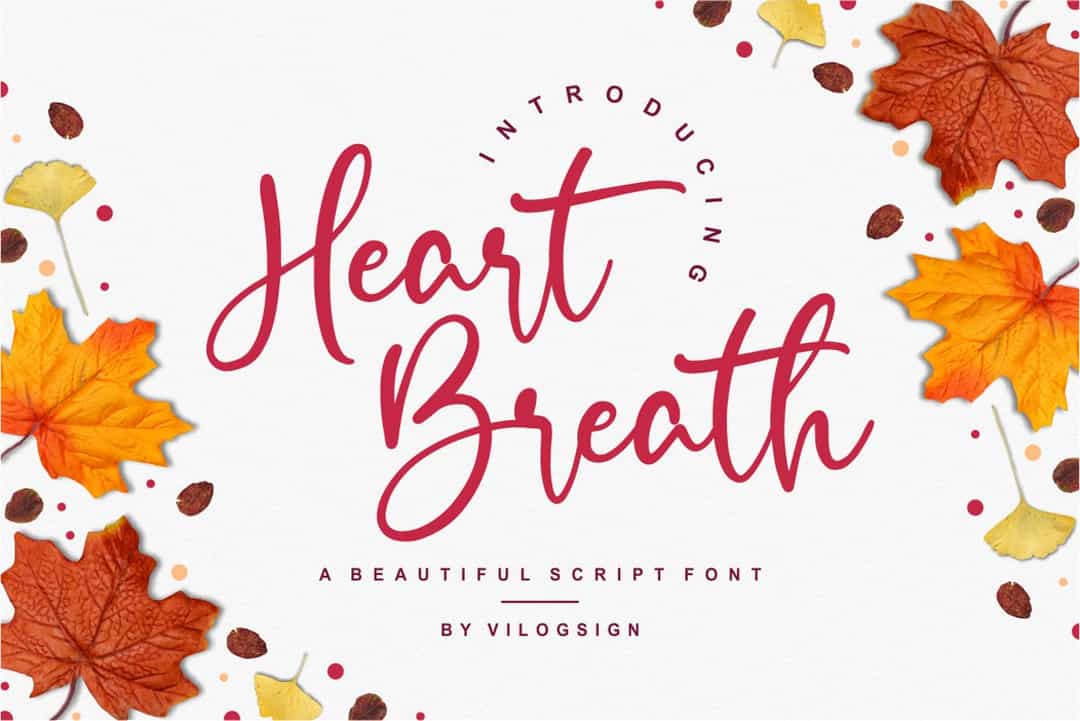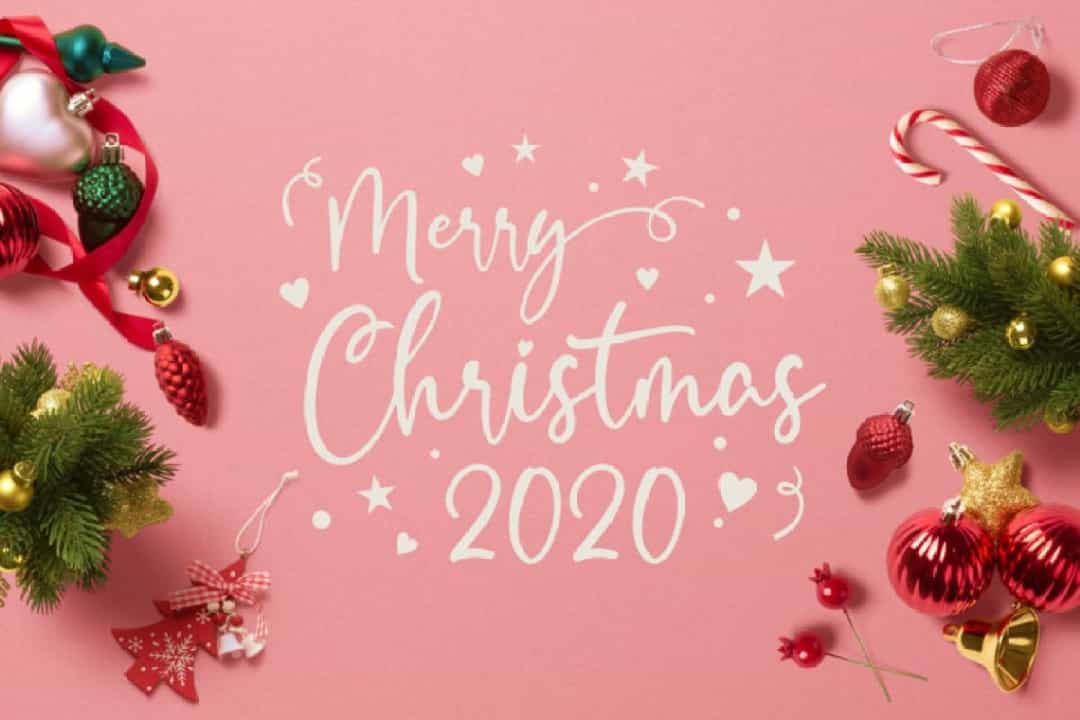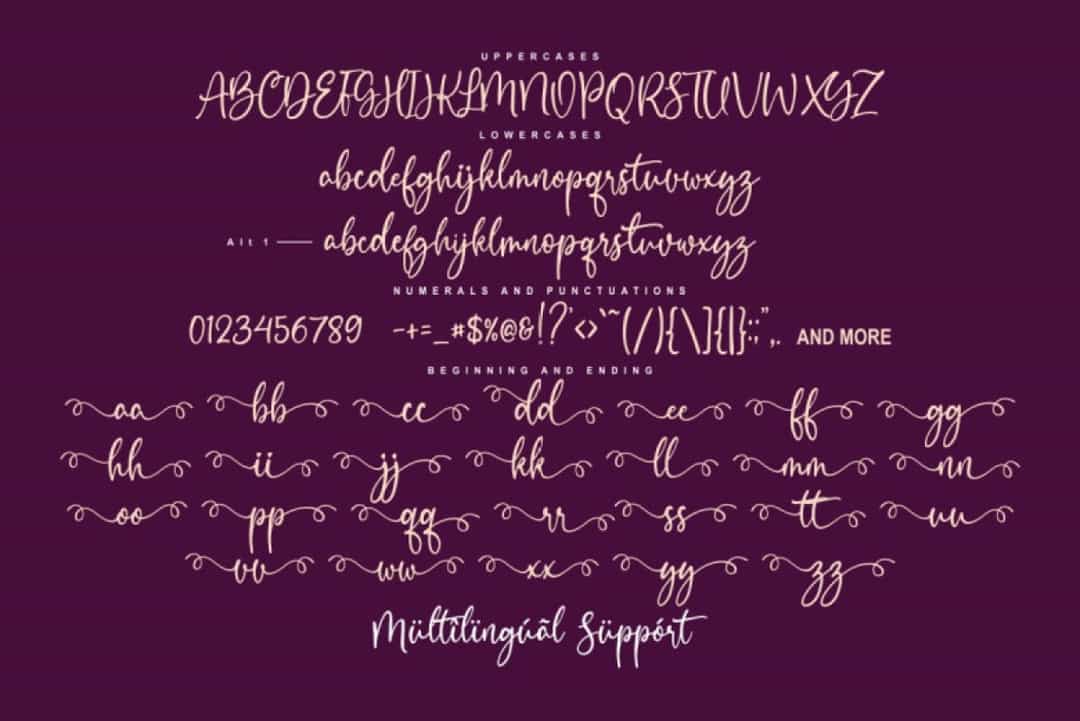
Heart Breathe is a beautiful handwritten calligraphy font and is drawn by the same artist. It also make a way of passing your message through the designing part and with such designs that will be hard to forget. Cute and welcoming, Heart Breathe is perfect for both playful and more relaxed designs; and, it has localization to address all your needs!